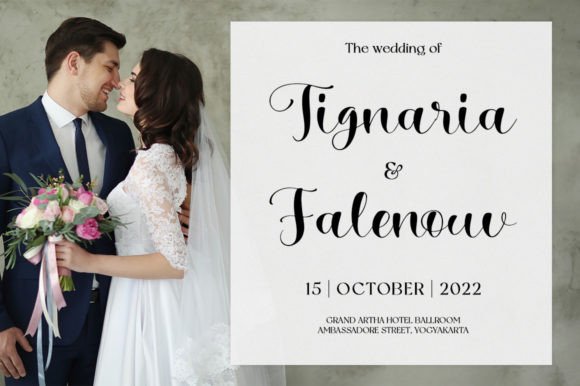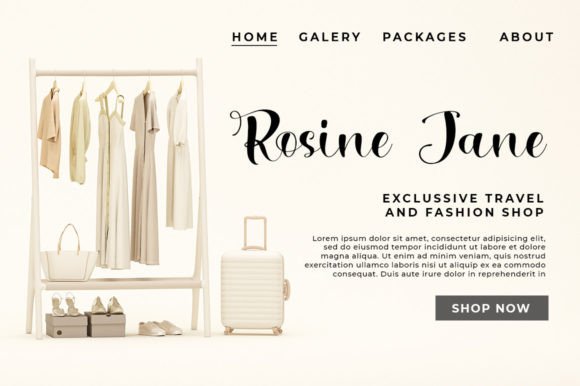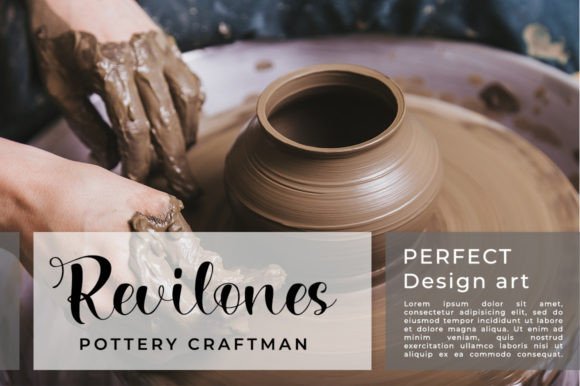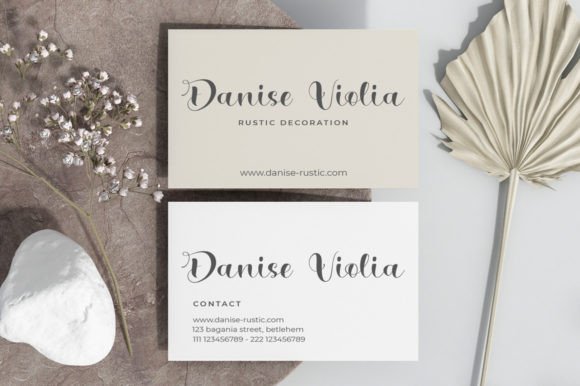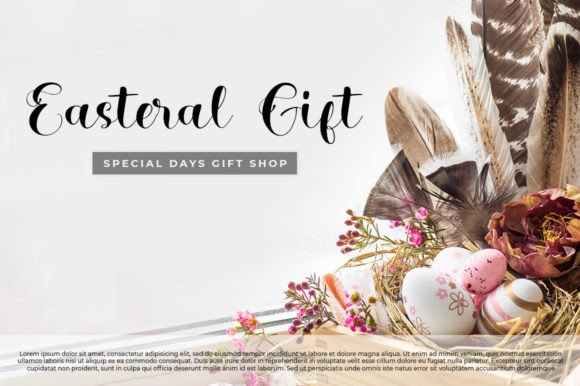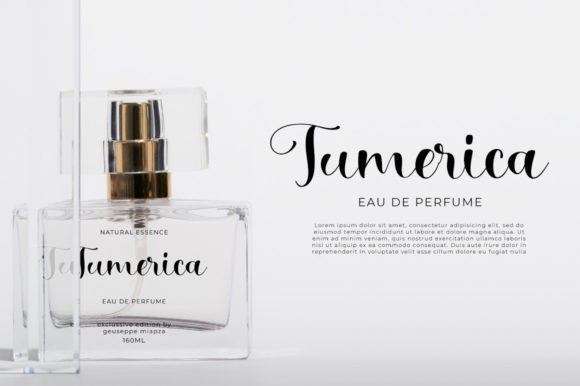
Introducing Delighted Font: The Sweet and Delicate Handwritten Font for Romantic Designs
Are you a designer or crafter looking for a font that can add a touch of romance and personalization to your designs? Look no further than Delighted Font, a sweet and delicate handwritten font that’s perfect for creating beautiful wedding invitations, cards, and other designs that require a special touch.
What Makes Delighted Font Special?
Delighted Font is a unique and charming handwritten font that’s designed to bring a sense of joy and elegance to your designs. Its dainty and delicate strokes make it ideal for creating romantic and personalized designs that will leave a lasting impression. Whether you’re designing wedding invitations, greeting cards, or other special occasion designs, Delighted Font is the perfect choice.
Characteristics of Delighted Font
So, what makes Delighted Font so special? Here are some of its key characteristics:
- Sweet and delicate strokes: Delighted Font features sweet and delicate strokes that give it a charming and elegant feel.
- Handwritten style: This font has a beautiful handwritten style that’s perfect for creating personalized and romantic designs.
- Dainty and joyful: Delighted Font is dainty and joyful, making it ideal for creating designs that require a touch of whimsy and playfulness.
- Romantic and personalized: This font is perfect for creating romantic and personalized designs that will make your customers feel special.
Uses of Delighted Font
Delighted Font is a versatile font that can be used for a variety of design projects. Here are some of the most popular uses of this font:
- Wedding invitations: Delighted Font is perfect for creating beautiful and elegant wedding invitations that will set the tone for the big day.
- Greeting cards: This font is ideal for creating personalized greeting cards for special occasions such as birthdays, anniversaries, and holidays.
- Party invitations: Delighted Font can be used to create playful and whimsical party invitations that will get your guests excited.
- Branding and packaging: This font can also be used for branding and packaging designs that require a touch of elegance and sophistication.
Why Designers and Crafters Love Delighted Font
Designers and crafters love Delighted Font for many reasons. Here are some of the most popular reasons:
- Easy to read: Delighted Font is easy to read, making it perfect for designs that require a clear and legible font.
- Versatile: This font is versatile and can be used for a variety of design projects, from wedding invitations to branding and packaging.
- Unique and charming: Delighted Font has a unique and charming style that’s sure to make your designs stand out.
- Personalized touch: This font adds a personalized touch to your designs, making them feel special and unique.
Tips for Using Delighted Font
Here are some tips for using Delighted Font in your designs:
- Use it for headings and titles: Delighted Font is perfect for headings and titles, where its elegant and delicate strokes can shine.
- Pair it with other fonts: This font can be paired with other fonts to create a unique and interesting design.
- Experiment with colors: Delighted Font looks great in a variety of colors, so don’t be afraid to experiment and find the perfect color for your design.
- Use it for digital and print designs: This font can be used for both digital and print designs, making it a versatile addition to your font collection.
Delighted Font is a sweet and delicate handwritten font that’s perfect for creating romantic and personalized designs. Its dainty and joyful strokes make it ideal for wedding invitations, cards, and other special occasion designs. With its versatility, ease of use, and unique charm, Delighted Font is a must-have for designers and crafters looking to add a touch of elegance and sophistication to their designs.